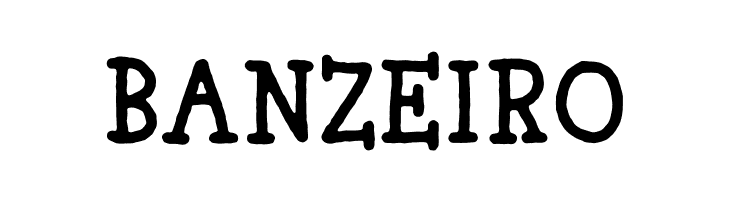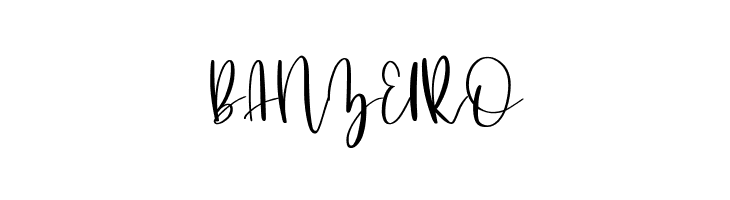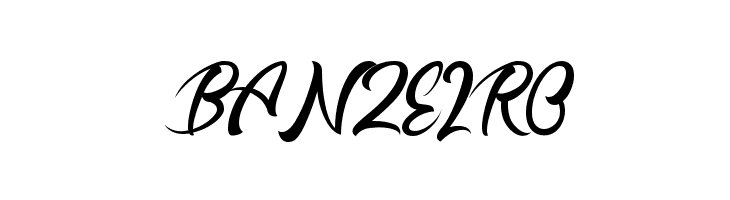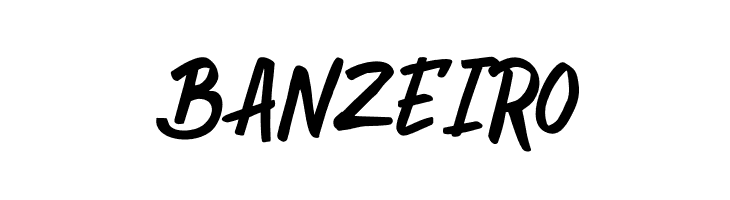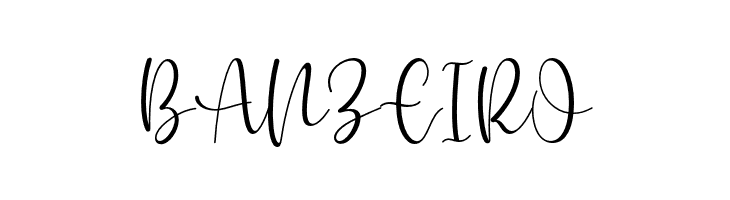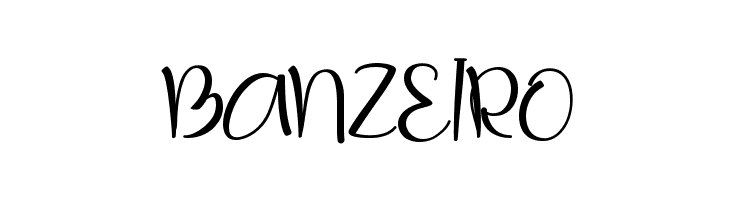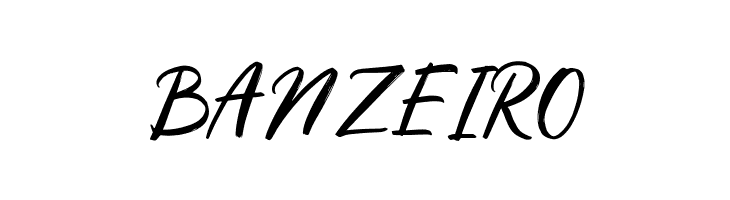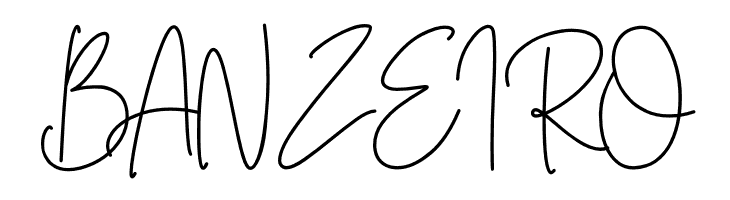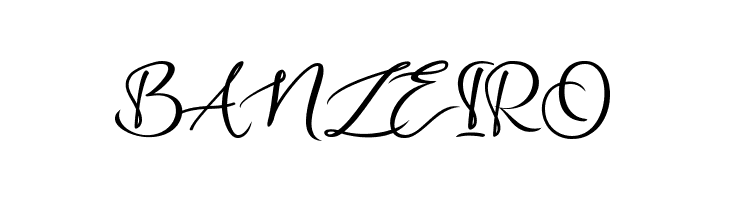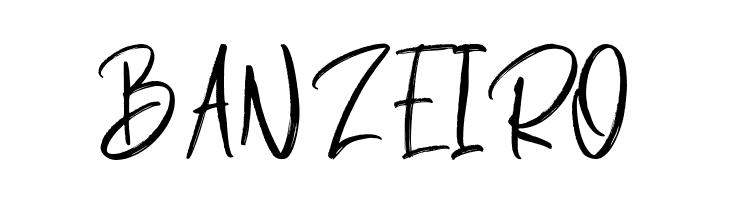
• Butterline
A graceful script font with fluid, cursive strokes and elegant flourishes.
• Butterlove Free Personal Regular
A playful, cursive font with bold strokes and artistic flair.
• ButterLuchyFree
A lively, handwritten font with dynamic, cursive strokes.
• ButterLuchyFree
A dynamic, expressive handwritten font with fluid strokes and playful curves.
• Butterly
A dynamic, cursive font with a flowing, handwritten style.
• Butterly script
An elegant script font with fluid, cursive strokes and sophisticated style.
• Buttermilk Biscuits
A bold, playful script font with dynamic curves and thick strokes.
• Buttermill
A dynamic and flowing script font with elegant curves and a handwritten appearance.
• Buttermillon
A dynamic, expressive handwritten font with fluid, slightly slanted letterforms.
• Butterna
A playful and elegant script font with a modern, handwritten style.
• ButterPineapple2Regular
• ButterPineappleRegular
• Butters Mine
A bold, expressive handwritten font with dynamic strokes and playful curves.
• Butterscotch Meringue
A playful, cursive font with flowing, interconnected strokes and a whimsical charm.
• Buttershine-Script
An elegant script font with flowing, cursive letterforms and artistic flair.
• ButtershineSerif
A classic serif font with elegant serifs and medium contrast, ideal for sophisticated designs.
• Buttershy
A playful, handwritten font with smooth, flowing lines and a whimsical flair.
• Butterskull Regular
A playful, informal font with rounded, irregular letterforms.
• Butterskull Regular
A playful, bold font with rounded edges and a hand-drawn aesthetic.
• Buttersoy Free Regular
A lively and expressive handwritten font with fluid, dynamic strokes.
• ButterSwanyFreePersonalUse
A playful, bold outline font with a whimsical and fun style.
• Buvard